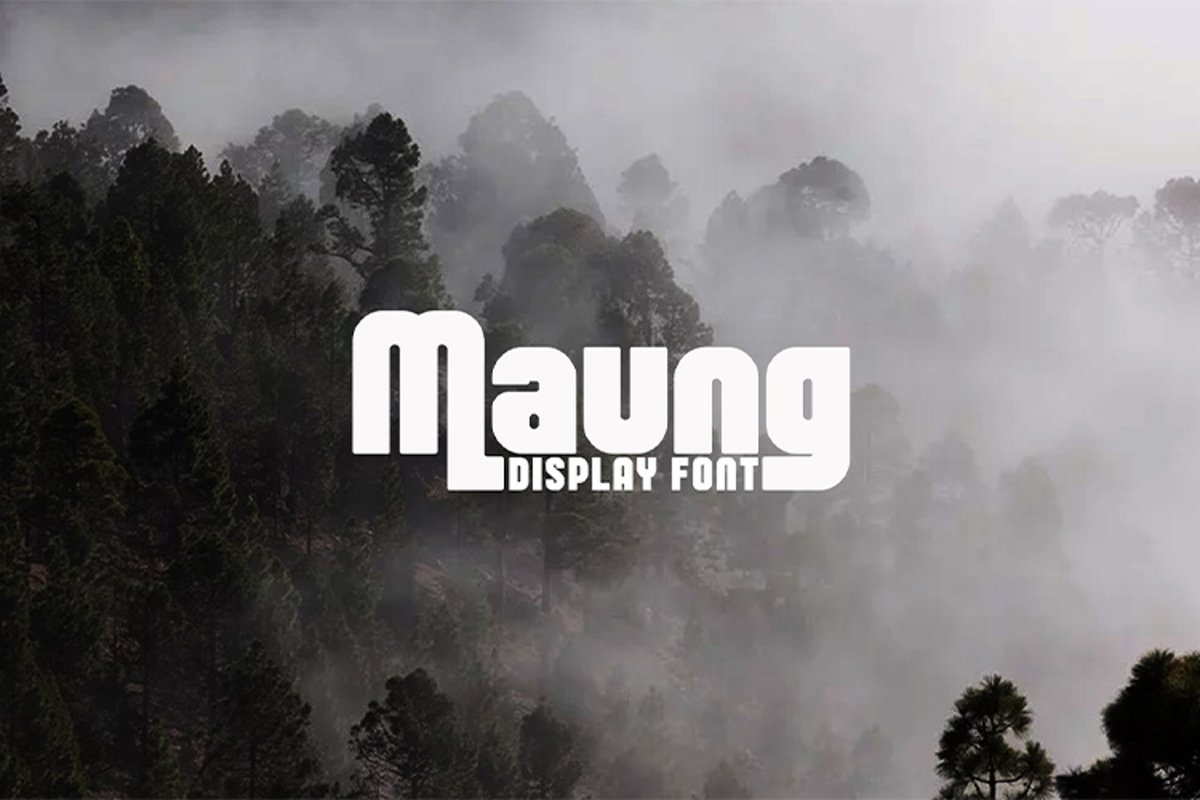
Maung
Maung font is a display font, suitable for logos, posters, magazine covers, modern envelope lettering or book design, project branding, and so on. What's Included: